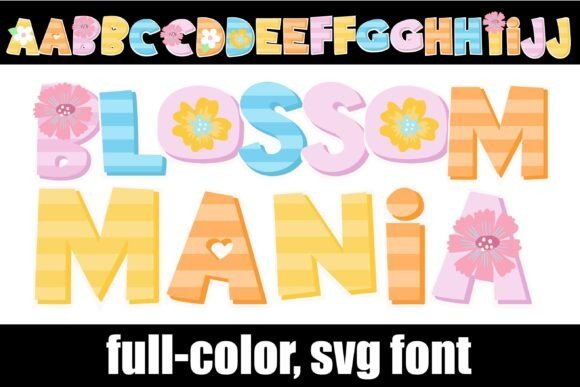
Unleash the Magic of Spring with the Blossom Mania Font
Introducing the Blossom Mania Font, a full-color SVG font that’s bursting with botanical joy. This playful typeface is perfect for adding a touch of springtime magic to your designs. With its chunky, blocky display letterforms adorned with oversized flower petals and pastel stripes, the Blossom Mania Font is an exceptional choice for youth merchandise, birthday party invitations, and seasonal event posters.
As a designer, you’ll appreciate the versatility and high-impact visual appeal of the Blossom Mania Font. It’s an easy way to add a sense of legendary artisanal fun and highly polished illustrative brilliance to your brand, ensuring your headlines radiate sunny warmth and leave a lasting impression.
- Unique Characteristics: Blossom Mania Font features a playful, whimsical design with intricate details and ornaments, making it ideal for use in creative and artistic projects.
Blossom Mania Font Review
Overall, I think Blossom Mania Font has a lot of potential, but it’s not without its limitations. Let’s dive in and see what works well and what doesn’t.
- Colorful and vibrant aesthetic that’s perfect for spring or summer designs
- Beautiful, intricate details in the flowers and leaves
- Playful, whimsical feel that’s great for children’s books or garden-themed designs
- Supports a wide range of languages, making it a great choice for global designs
- May not be suitable for formal or professional designs due to its playful, whimsical feel
- Some letters may be difficult to read at small font sizes due to the intricate details
- Lacks a clear, consistent line weight, which may make it harder to use in complex designs
I would recommend Blossom Mania Font for designs that require a fun, playful touch. However, it may not be the best choice for more formal or complex designs. With some careful planning and use, I think this font has the potential to be a real showstopper.
For best results, use Blossom Mania Font in designs that require a playful, whimsical touch. It’s perfect for invitations, social media graphics, and children’s book covers. To get the most out of this font, experiment with different font sizes, colors, and combinations with other fonts.